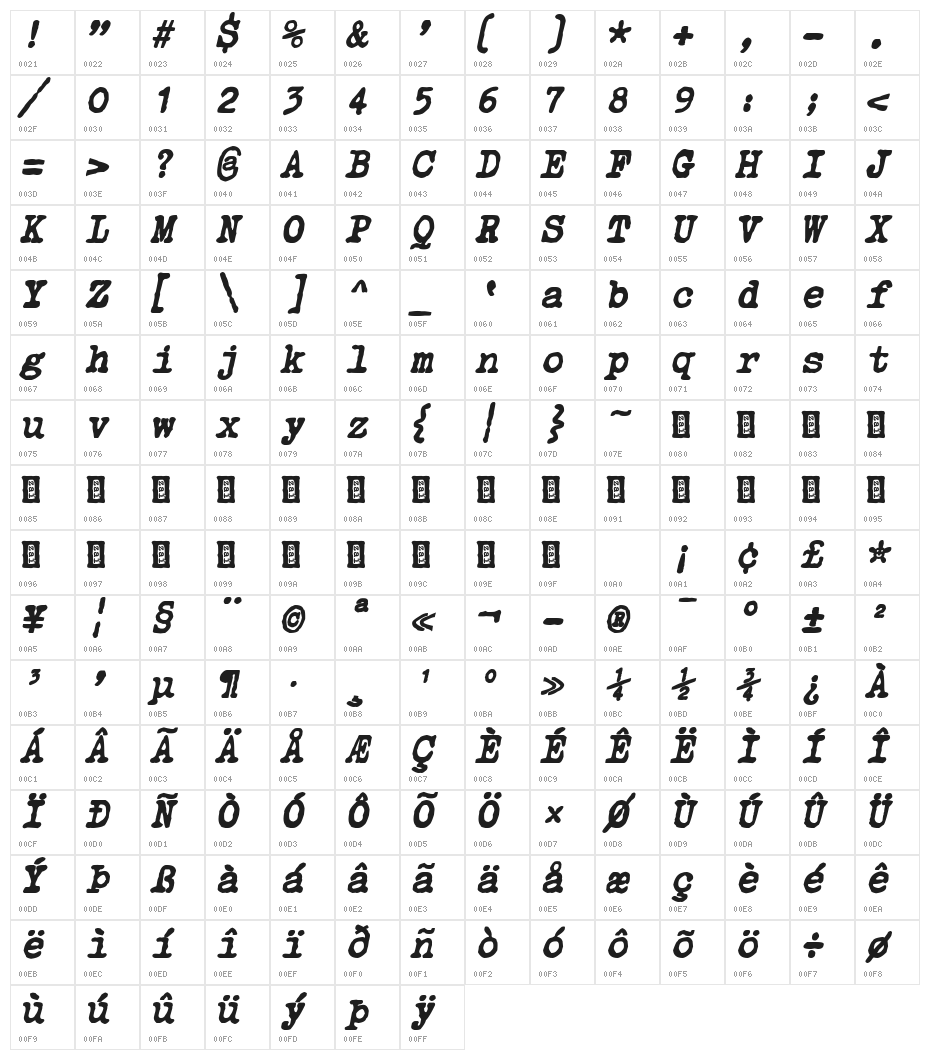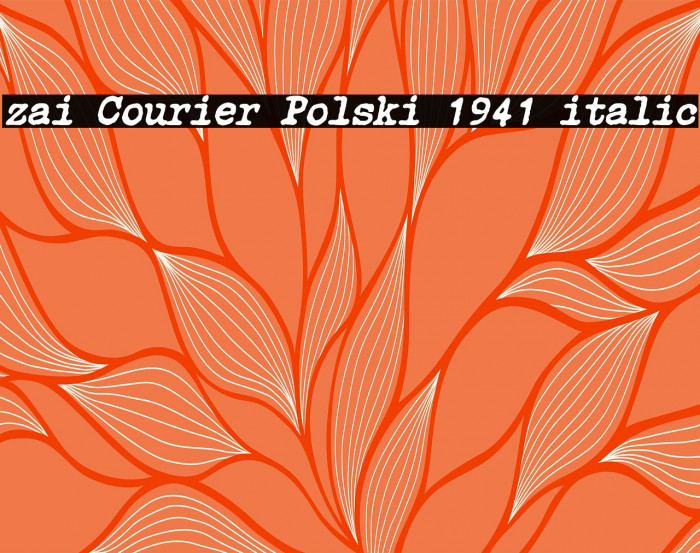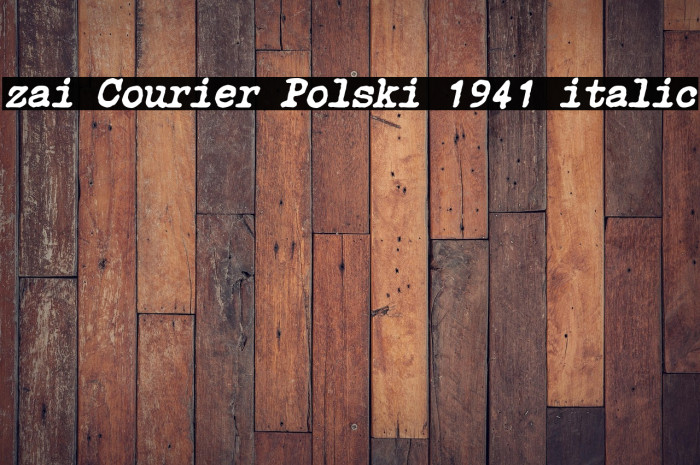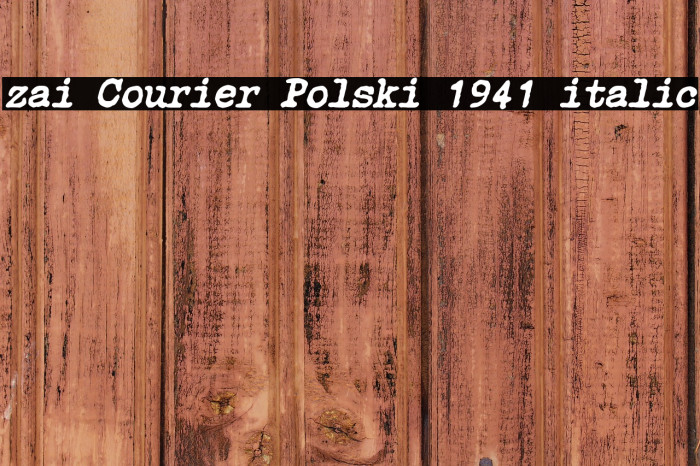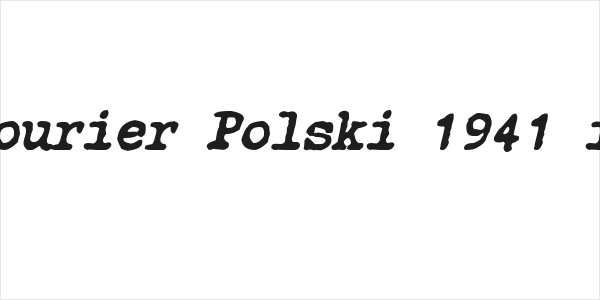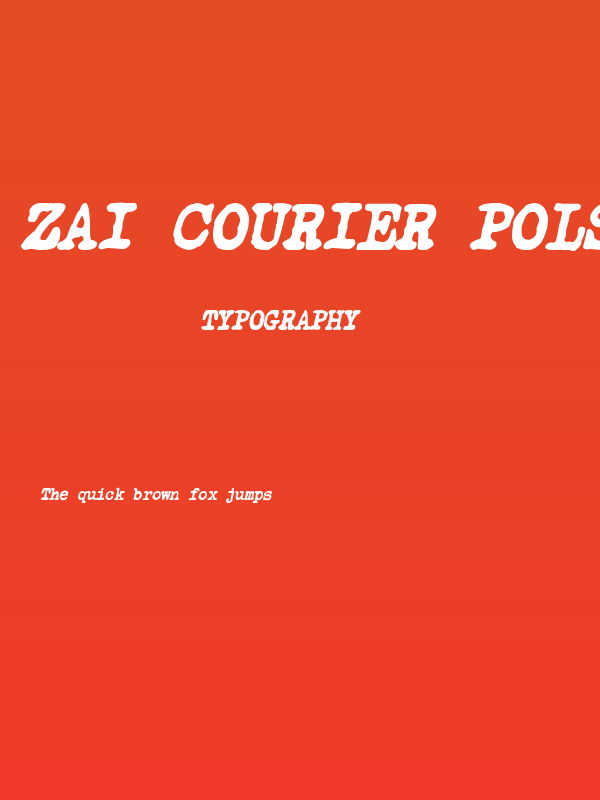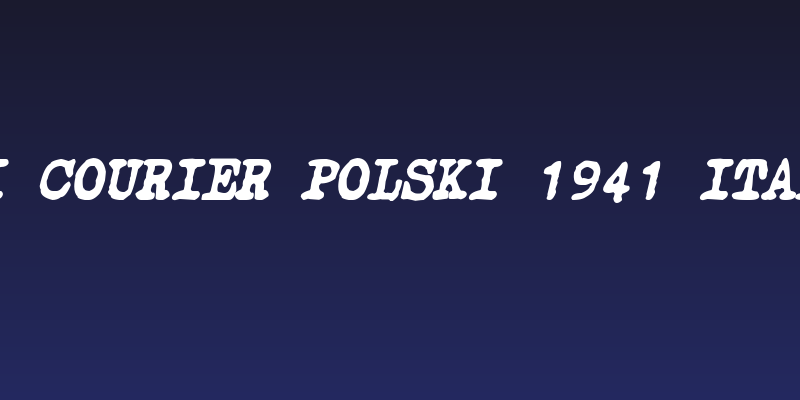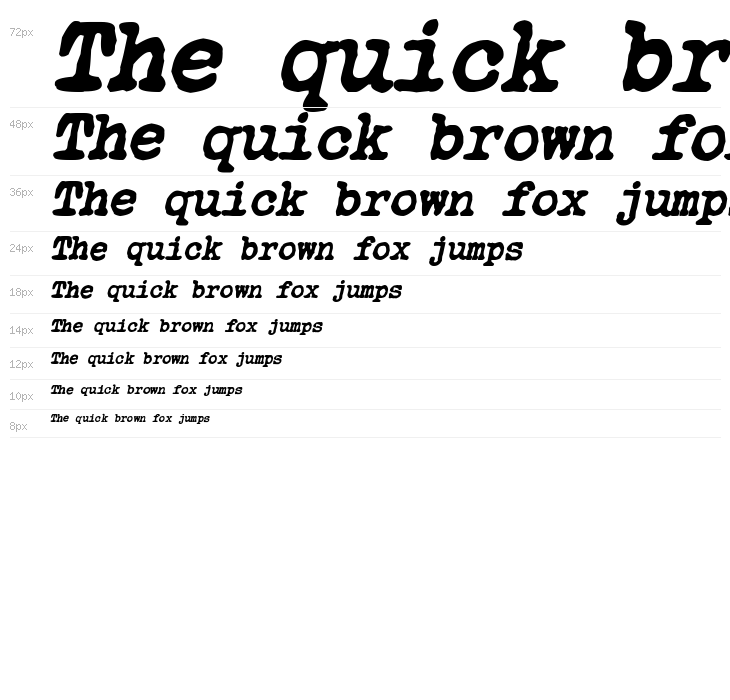
zai Courier Polski 1941 italic Font
zai Courier Polski 1941 italic Description
This font features a bold and expressive style with a distinct italic slant, giving it a dynamic and energetic appearance. The characters are robust and slightly condensed, with thick strokes that create a strong visual impact. The uppercase letters are bold and commanding, while the lowercase letters maintain a consistent flow with rounded edges. The numerals are clear and legible, matching the overall boldness of the font. Special characters are well-integrated, maintaining the same bold and italicized style. This font's unique character makes it suitable for projects that require a strong and distinctive typographic presence.
| Use Case | Headlines, Posters, Branding |
| Proposed Projects | Ideal for vintage-themed designs, posters, branding, and headlines that require a strong visual impact. |